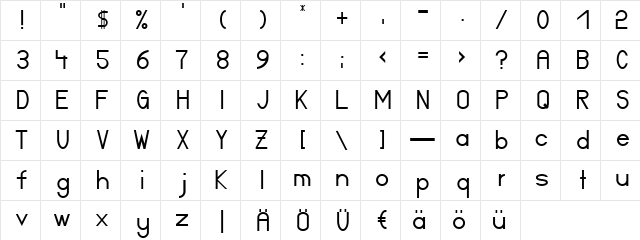
Certified Regular
Design Context for Certified Typeface
Certified takes a measured approach to typography — its balanced proportions and neutral character make it a reliable workhorse for both digital and print work.